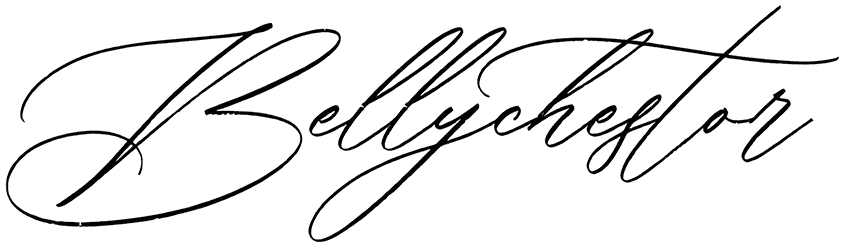
Bellychestor Font
Make your letters delicately dance like a ballerina with this calligraphy font and attract lots of viewers. Bellychestor conveys a chic and classic vibe that would be a good pick for different topics. You don’t have numbers and punctuation marks in this signature font, but don’t miss this chance. Give it a go and spotlight your artistic talents.